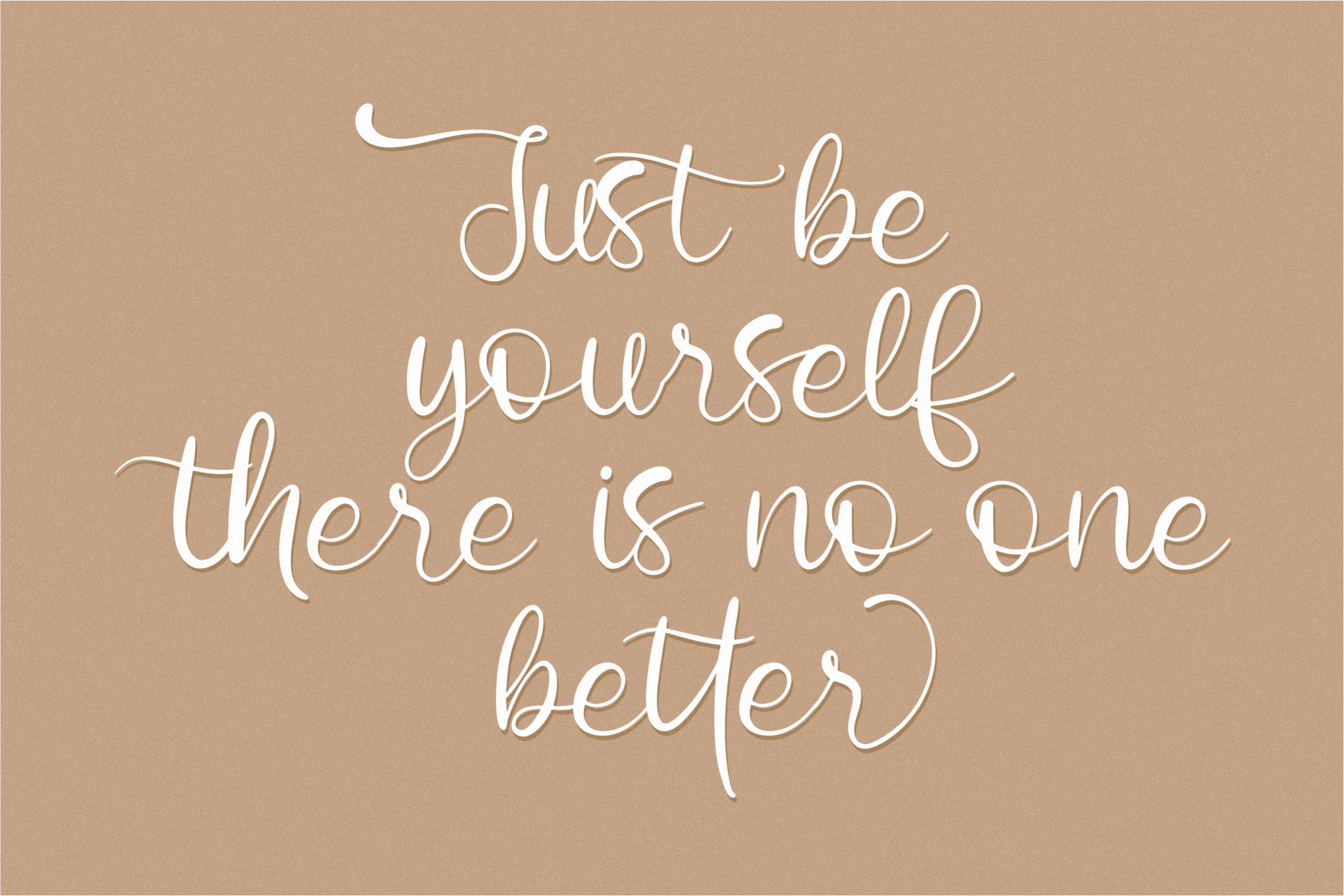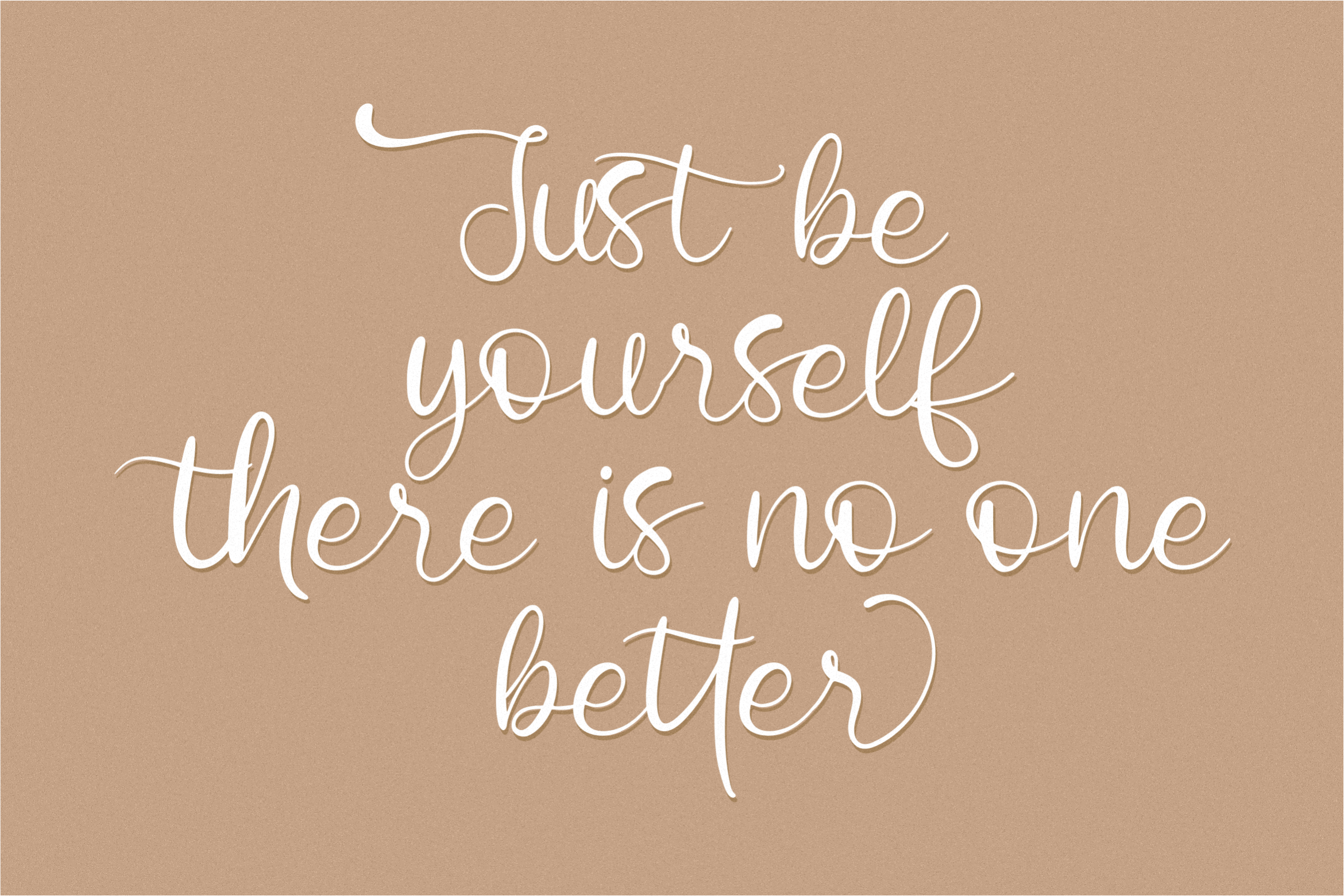
Janjitake Font
Janjitake Script Font
This is a script font with a smooth handwritten style. It will add a luxury spark to any design project that you wish to create! This font is PUA encoded which means you can access all of the amazing glyphs and ligatures with ease!